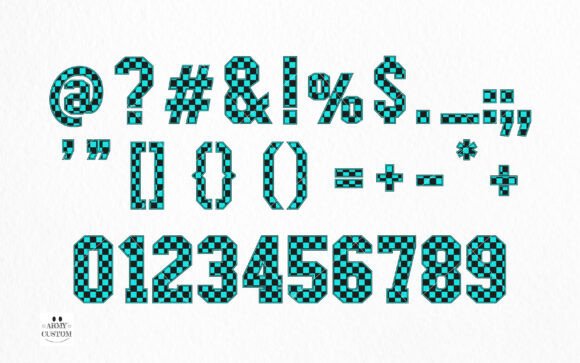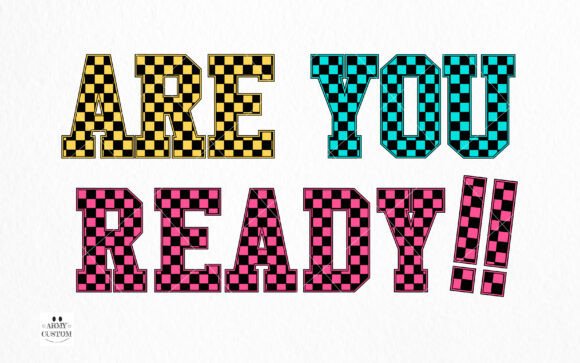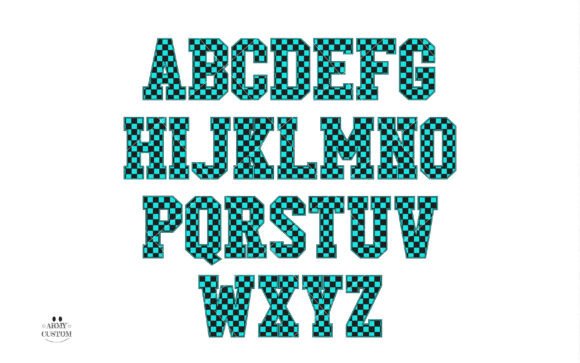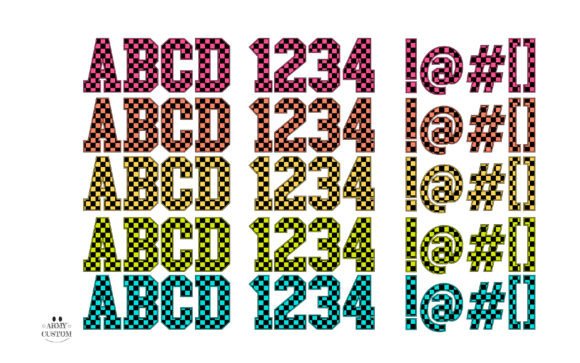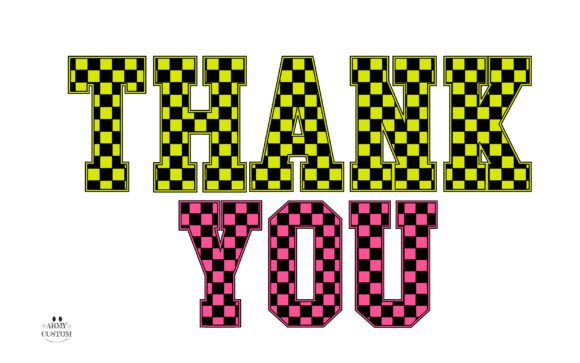
Introducing “Back to School” – A Whimsical Checkered Font to Elevate Your Designs
Are you ready to unleash your creativity and add a touch of nostalgia to your designs? Look no further than the “Back to School” font, a stunning checkered bundle that’s sure to captivate your audience. This enchanting font is reminiscent of the carefree days of childhood, when imagination knew no bounds and creativity was encouraged. With its unique checkered pattern, commonly referred to as a checkered alphabet, “Back to School” is the perfect addition to your design toolkit.
The Beauty of Imperfections
The “Back to School” font celebrates the beauty of imperfections, making it a standout in the world of typography. Its checkered pattern adds a playful touch to any design, evoking memories of childhood days spent in the classroom. The font’s imperfections are what make it truly special, giving it a unique character that’s sure to make your designs stand out. Whether you’re a designer, crafter, or simply someone who appreciates the art of typography, “Back to School” is a font that’s sure to delight.
Stimulating Creativity and Imagination
The “Back to School” font is more than just a typography – it’s a tool for stimulating creativity and imagination. Its unique design encourages designers to think outside the box and push the boundaries of what’s possible. With “Back to School,” you can craft brilliant ideas and bring them to life in a way that’s both visually appealing and engaging. Whether you’re working on a new project or simply looking for inspiration, this font is sure to spark your creativity and ignite your passion for design.
A Distinctive Embodiment of a Designer’s Vision
The “Back to School” font is a distinctive embodiment of a designer’s vision, making it the perfect choice for those who want to add a personal touch to their designs. Its checkered pattern is both eye-catching and memorable, making it an excellent choice for a wide range of design applications. Whether you’re creating a logo, brochure, or social media graphic, “Back to School” is a font that’s sure to make a lasting impact.
Step Right Back into the Enjoyable Classroom Days
With the “Back to School” font, you can step right back into the enjoyable classroom days of your childhood. Its alluring checkered magic is sure to transport you back to a time when life was simpler and creativity was encouraged. Whether you’re a designer, crafter, or simply someone who appreciates the art of typography, this font is sure to delight. So why not take a step back in time and experience the nostalgia of “Back to School”? Your designs will thank you.
The “Back to School” font is perfect for designers and crafters who want to add a touch of whimsy to their work. Its unique checkered pattern makes it an excellent choice for a wide range of design applications, from logos and brochures to social media graphics and crafts. Whether you’re working on a new project or simply looking for inspiration, this font is sure to spark your creativity and ignite your passion for design.
Key Features of the “Back to School” Font
• Unique checkered pattern, commonly referred to as a checkered alphabet
• Celebrates the beauty of imperfections
• Stimulates creativity and imagination
• Distinctive embodiment of a designer’s vision
• Perfect for a wide range of design applications, from logos and brochures to social media graphics and crafts
Font Name Checkered Back to School Bundle Font
Author Army Custom
In conclusion, the “Back to School” font is a must-have for designers and crafters who want to add a touch of whimsy to their work. Its unique checkered pattern, imperfections, and nostalgic charm make it a standout in the world of typography. Whether you’re working on a new project or simply looking for inspiration, this font is sure to spark your creativity and ignite your passion for design. So why not give it a try and experience the magic of “Back to School” for yourself?